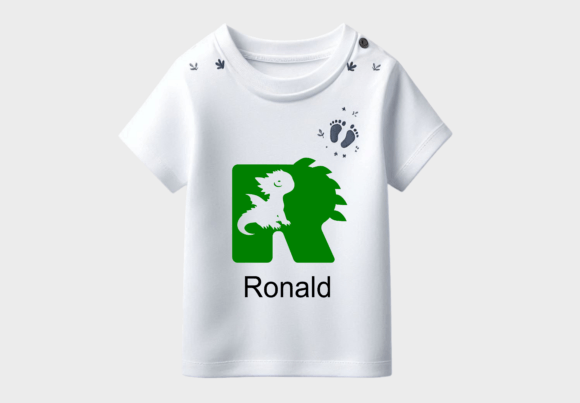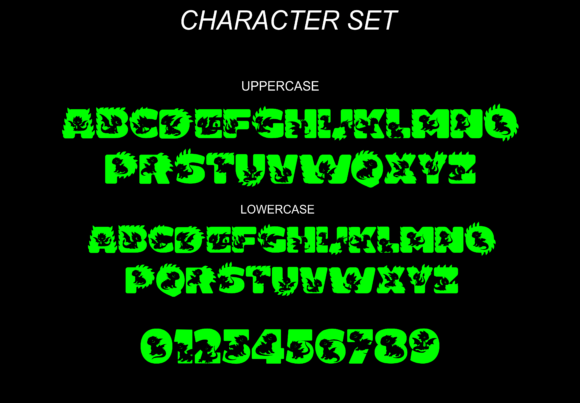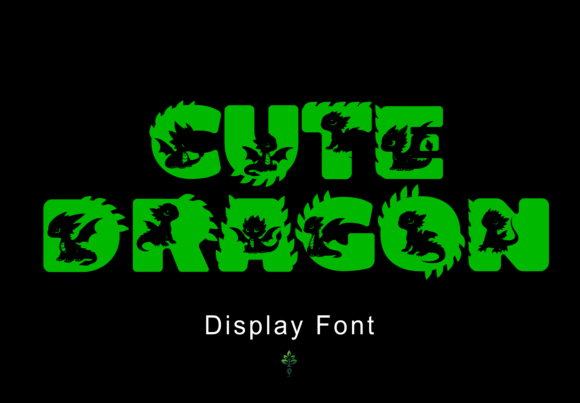
Unleash the Magic of Cute Dragon Font: Elevate Your Designs with a Touch of Whimsy
In the realm of typography, few fonts have managed to capture the essence of modern aesthetics as effortlessly as the Cute Dragon Font. This carefully curated typeface has been designed to infuse your projects with a captivating allure, transporting you and your audience into an immersive world of artistic expression. With its unique blend of meticulous craftsmanship and sprightly dynamism, the Cute Dragon Font is poised to revolutionize the way you approach design.
The Art of Typography: A Delicate Balance of Form and Function
Typography is an art form that requires a delicate balance of form and function. A well-designed font can elevate your project, conveying your message with clarity and style. The Cute Dragon Font achieves this balance with remarkable precision, boasting a distinctive character that is both visually striking and highly legible. Whether you’re a designer, craftsperson, or simply a creative enthusiast, this font is sure to inspire your next project.
What Makes Cute Dragon Font So Special?
So, what sets the Cute Dragon Font apart from other typefaces? Here are just a few reasons why this font has captured the hearts of designers and crafters worldwide:
- Unique Character: The Cute Dragon Font boasts a one-of-a-kind design that is both playful and sophisticated. Its distinctive character is sure to add a touch of whimsy to your projects.
- High Legibility: Despite its creative flair, the Cute Dragon Font remains highly legible, making it perfect for use in a variety of applications, from headings and titles to body text.
- Versatility: This font is incredibly versatile, suitable for use in a wide range of projects, from digital designs and crafts to print materials and more.
- Modern Aesthetics: The Cute Dragon Font embodies the essence of modern aesthetics, making it an ideal choice for designers and crafters who want to stay ahead of the curve.
Exploring the Design Process: Crafting a Font that’s both Beautiful and Functional
The Cute Dragon Font is the result of a meticulous design process that involved careful consideration of both form and function. The design team behind this font worked tirelessly to craft a typeface that would not only be visually striking but also highly legible and versatile.
Through a combination of traditional techniques and cutting-edge technology, the Cute Dragon Font was brought to life. The result is a font that is both beautiful and functional, perfect for use in a wide range of creative projects.
Applications of Cute Dragon Font: Where to Use this Amazing Typeface
The Cute Dragon Font is incredibly versatile, making it suitable for use in a wide range of applications. Here are just a few ideas to get you started:
- Digital Designs: Use the Cute Dragon Font to add a touch of whimsy to your digital designs, from social media graphics and blog posts to website headers and more.
- Crafts: This font is perfect for crafters, adding a personal touch to handmade projects, such as cards, invitations, and scrapbooking.
- Print Materials: The Cute Dragon Font is also suitable for use in print materials, including brochures, flyers, posters, and more.
- Branding: Use this font to create a unique brand identity that sets you apart from the competition.
Conclusion: Unlock the Full Potential of Cute Dragon Font
In conclusion, the Cute Dragon Font is a game-changing typeface that is sure to elevate your designs and inspire your creativity. With its unique character, high legibility, and versatility, this font is perfect for designers, crafters, and creative enthusiasts worldwide.
Whether you’re looking to add a touch of whimsy to your digital designs, crafts, or print materials, the Cute Dragon Font is the perfect choice. So why wait? Unlock the full potential of this amazing font and discover a world of creative possibilities.
- The Cute Dragon Font is a carefully curated typeface that embodies the essence of modern aesthetics.
- This font boasts a unique character, high legibility, and versatility, making it perfect for a wide range of creative projects.
- The Cute Dragon Font is suitable for use in digital designs, crafts, print materials, and more.
- This font is perfect for designers, crafters, and creative enthusiasts who want to add a touch of whimsy to their projects.